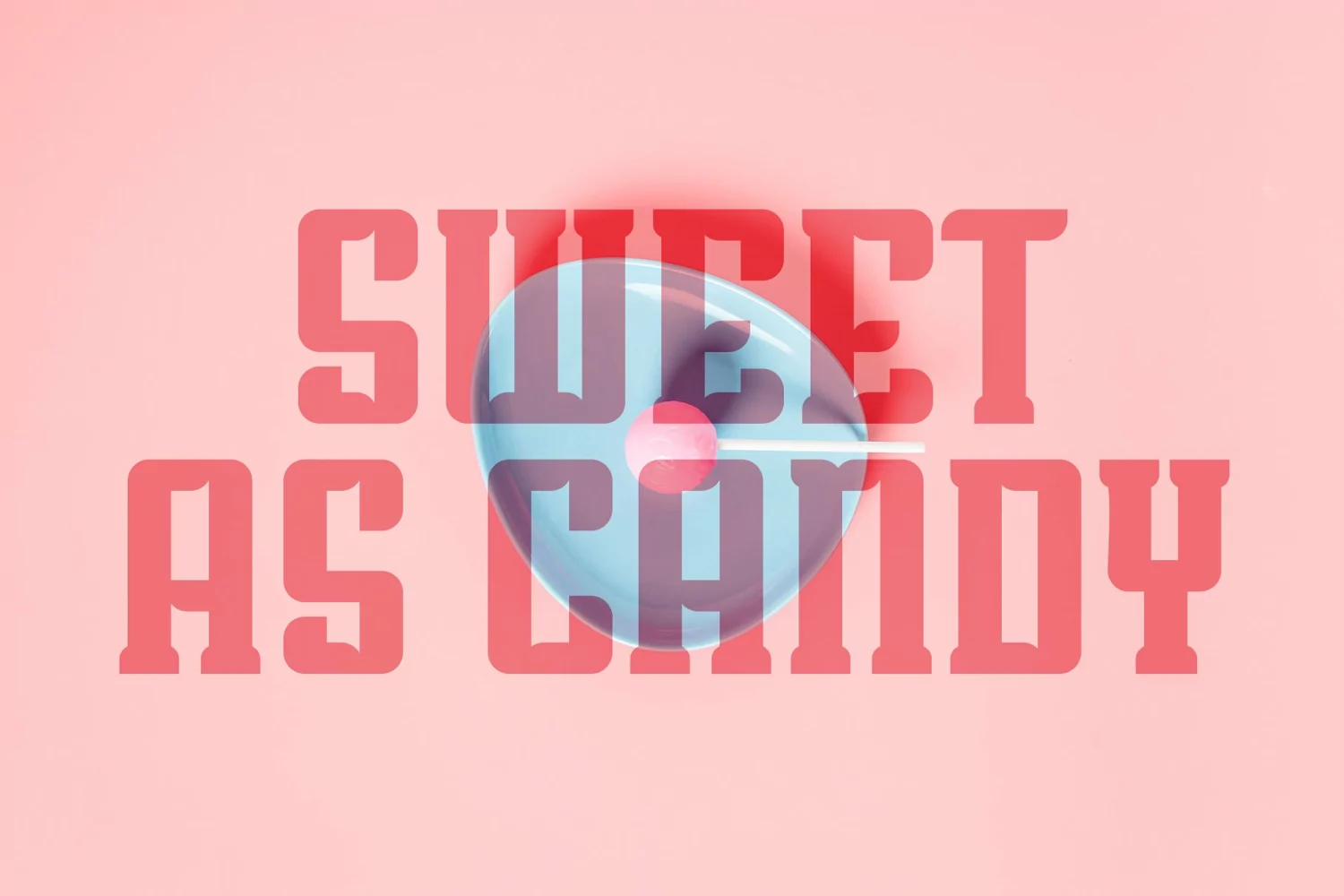
Bettan a unique display typeface. Perfect for display, poster, quotes, film, craft needs, book cover, business card, packaging, merchandise, branding, logo, logotype, header, title, and many more.